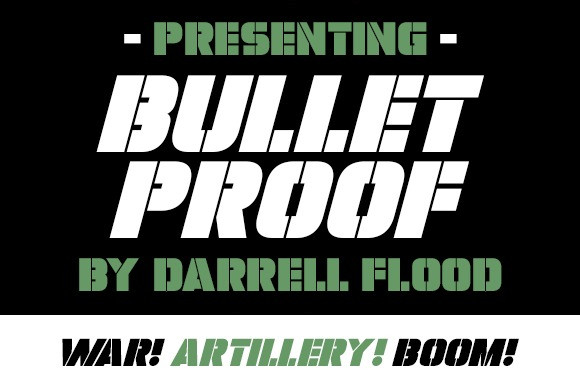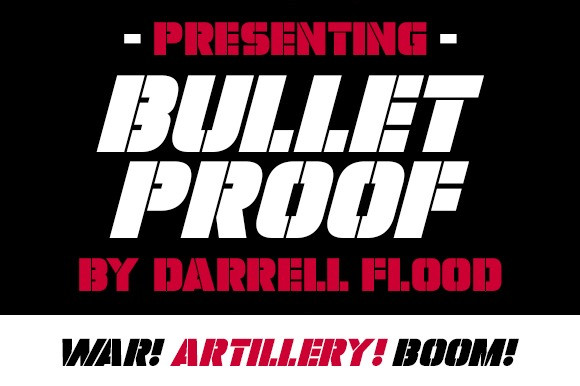
Bulletproof Font
Bulletproof Display Font, A heavy impact army-like font in a slick, stencil, yet modern style. Perfect for war themes, pitched battles, alien attacks and general use!